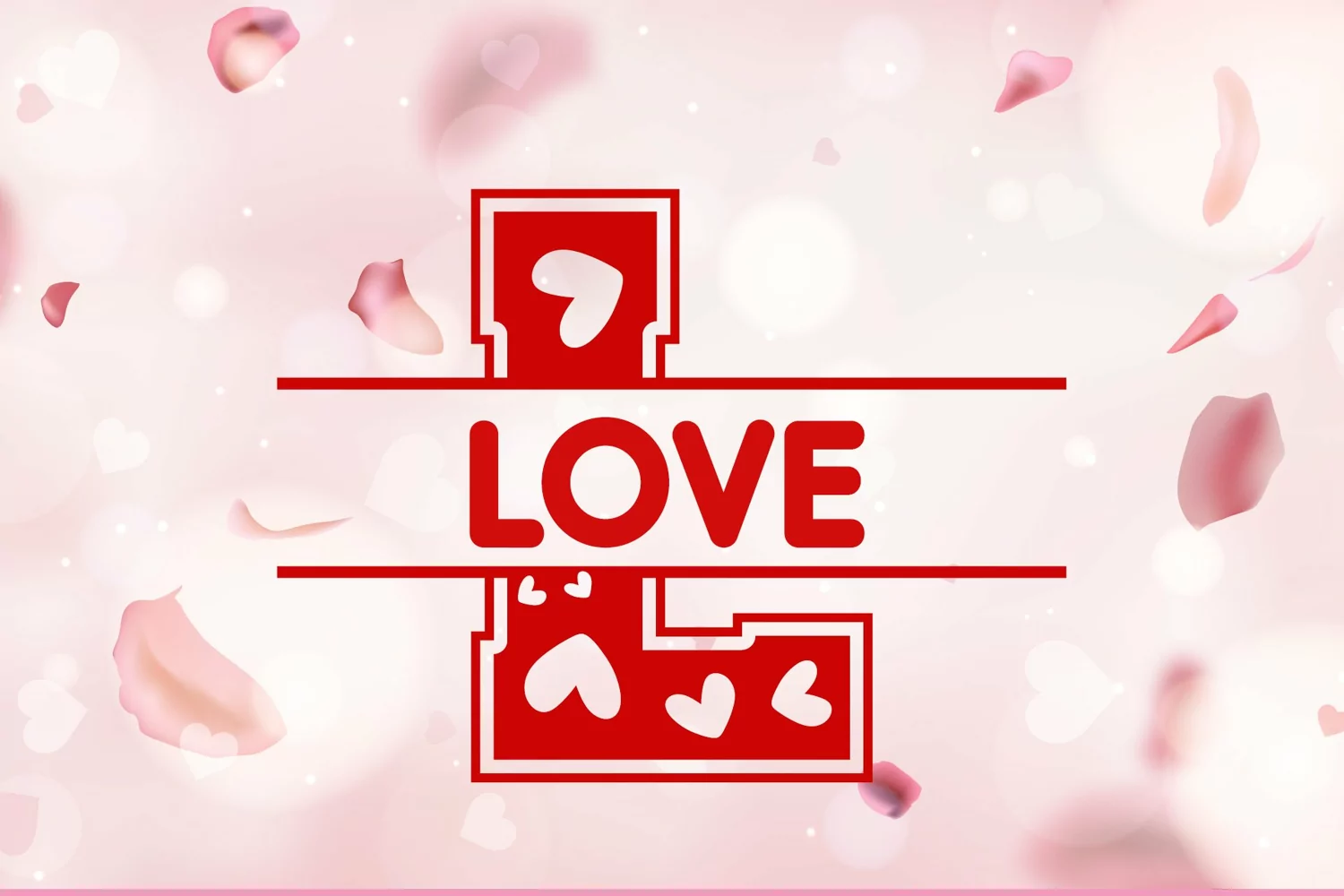
Hearts Split Monogram Font.
Hearts Monogram is a cool and bold display font. It features a trendy style and it is the ideal choice for a wide range of casual or informal designs.